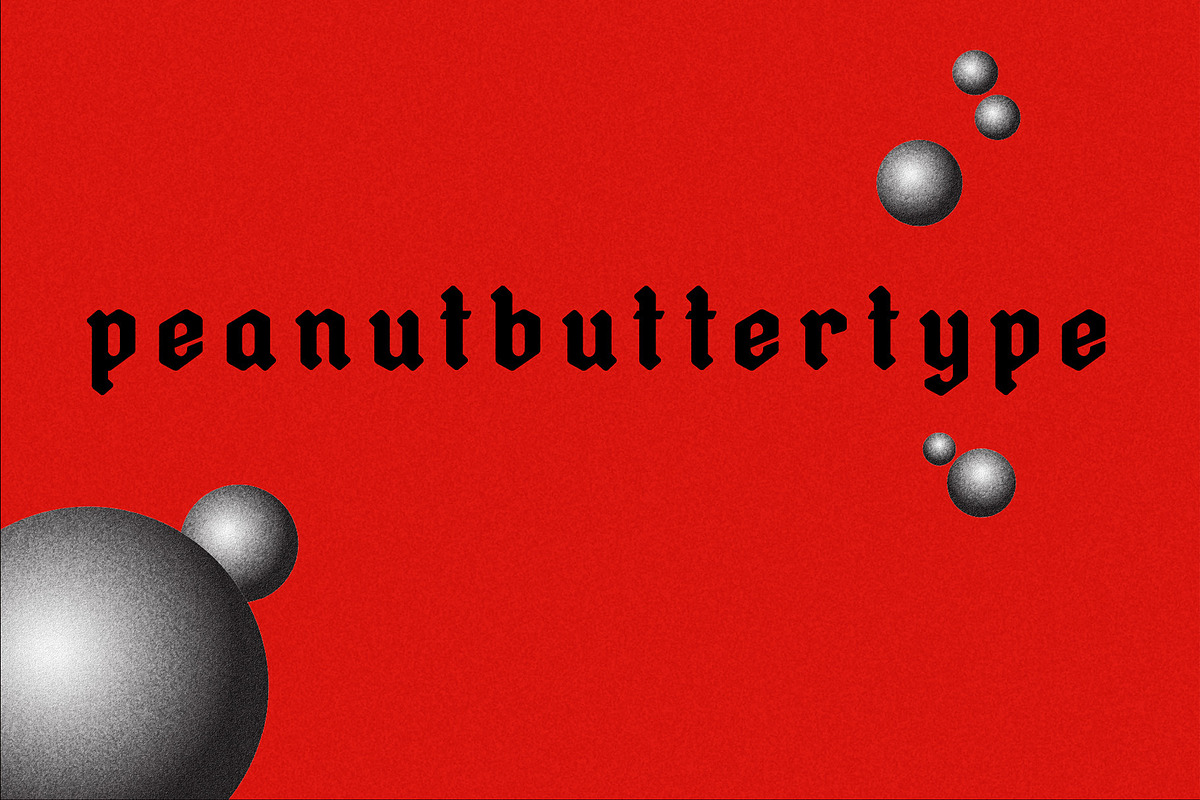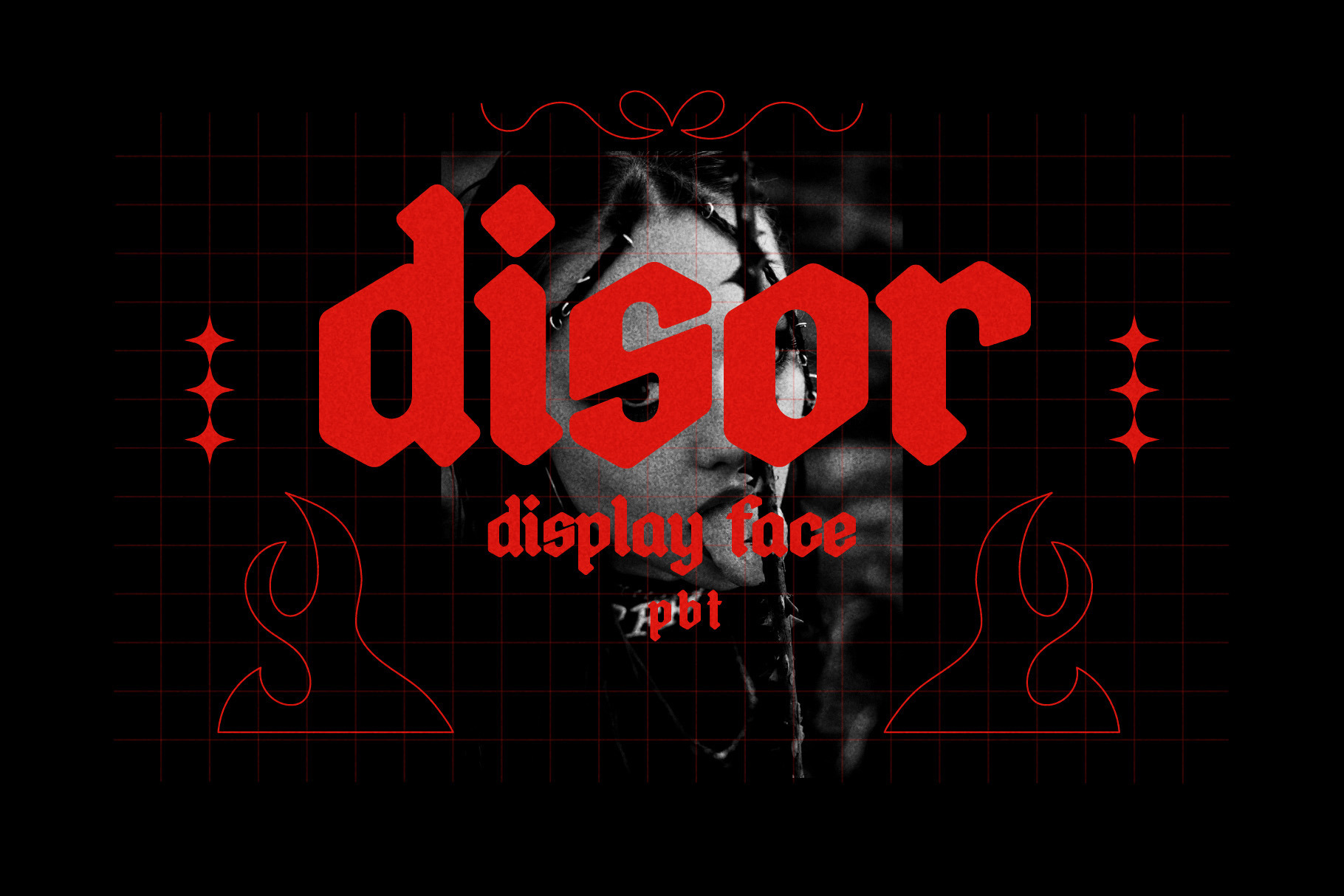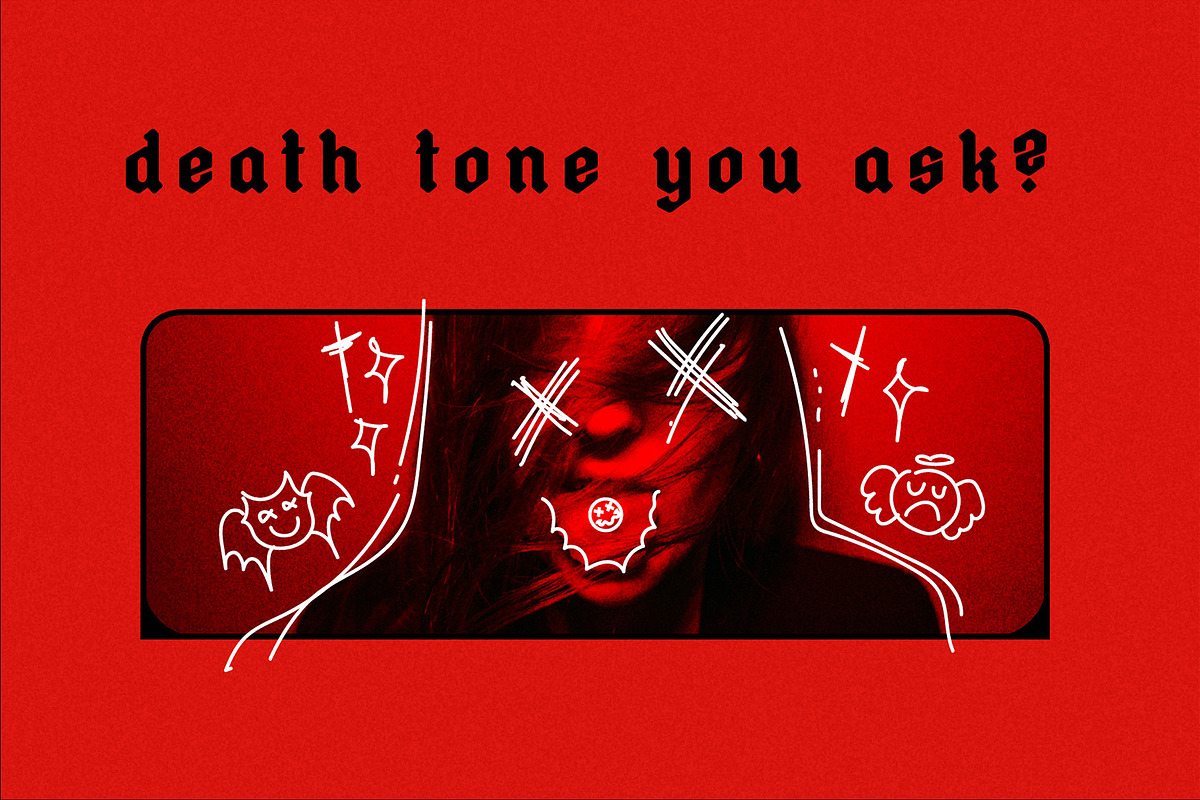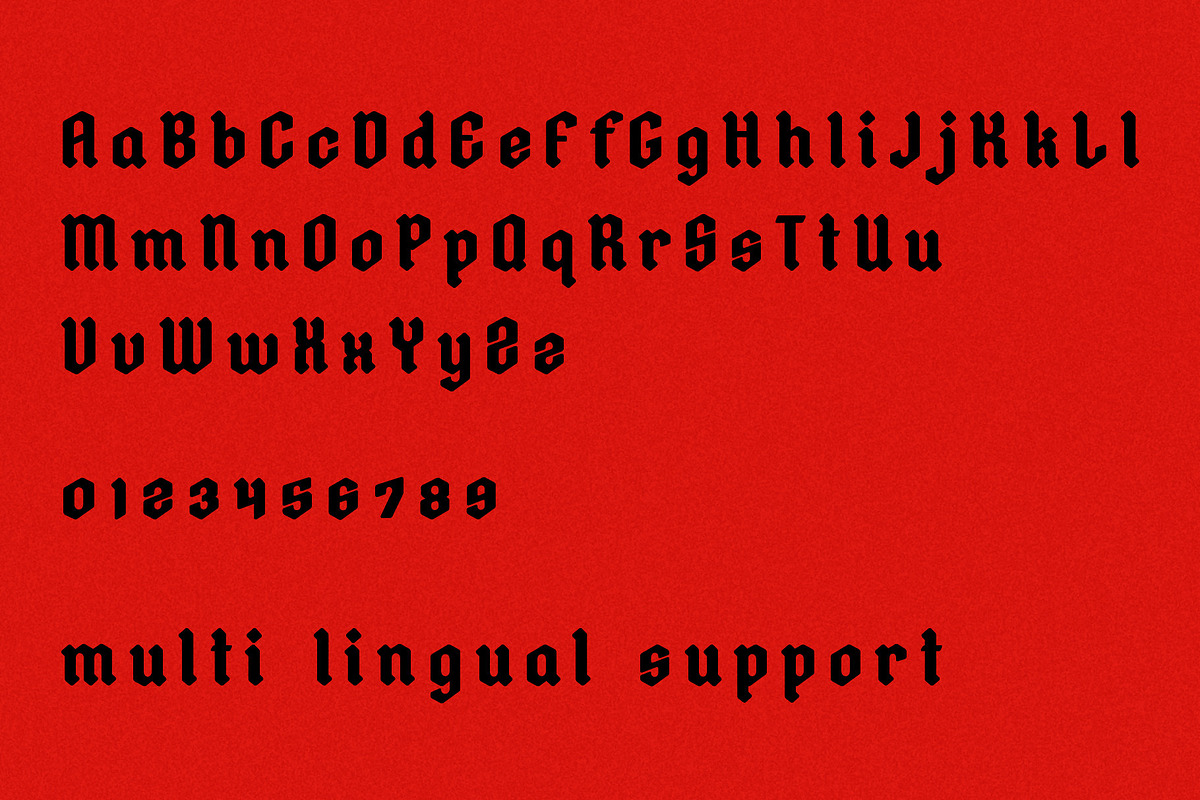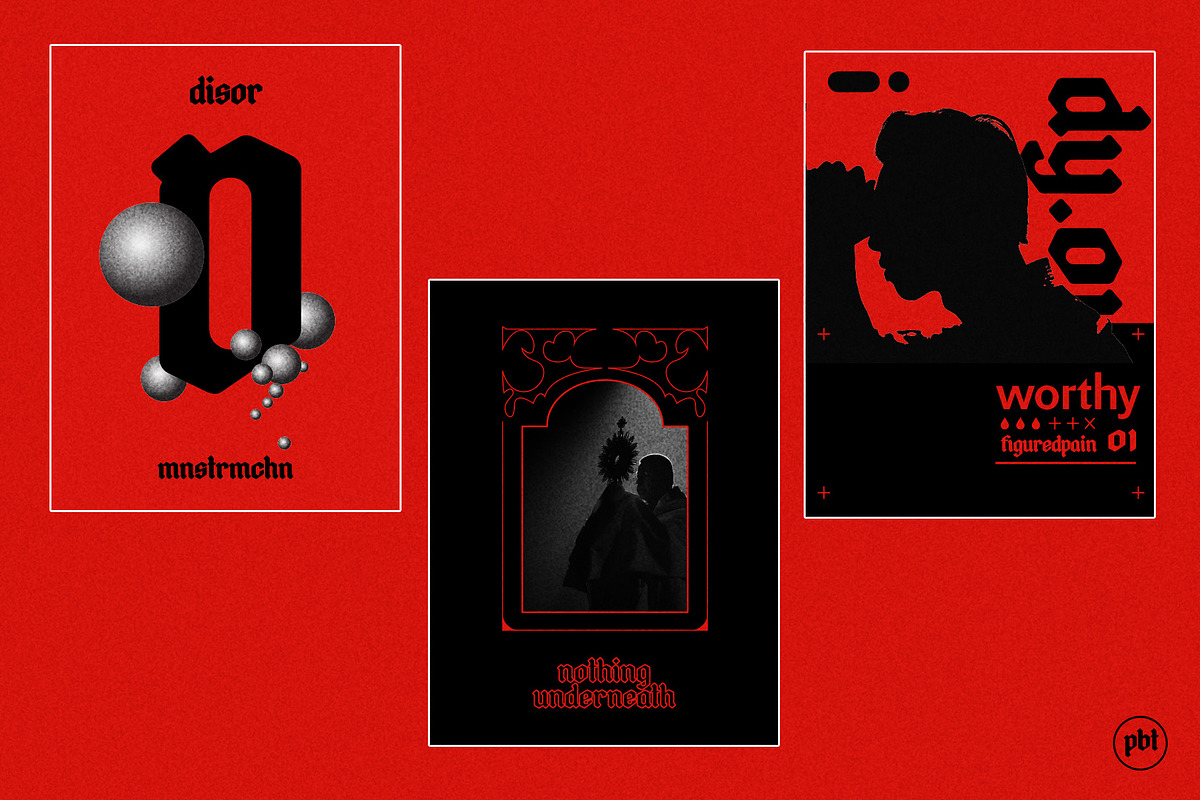
Disor Blackletter Typeface
Unleash the Wicked Charm of "Disor Blackletter" – A Typeface with a Naughty Dark Edge
Introducing Disor Blackletter, a bold and rebellious take on the classic gothic script. With its sharp, angular lines, twisted flourishes, and a touch of ink-spilled chaos, Disor breaks free from tradition to embrace a darker, more mischievous side. Perfect for designs that demand attention, this typeface combines the elegance of medieval blackletter with a raw, untamed energy that feels both forbidden and irresistible. Whether you're crafting ominous branding, rebellious logos, or edgy posters, Disor Blackletter adds an unmistakable sense of drama and mystery. It’s time to push boundaries—let your designs speak with a wicked, rebellious tone.